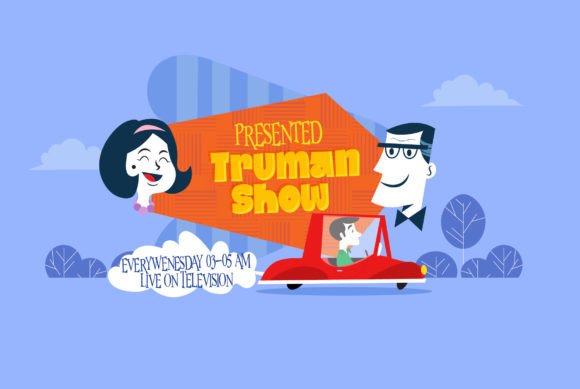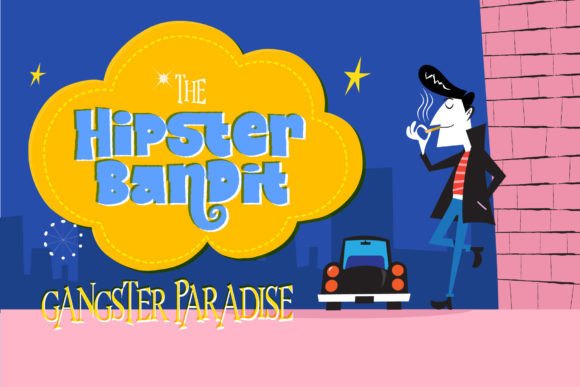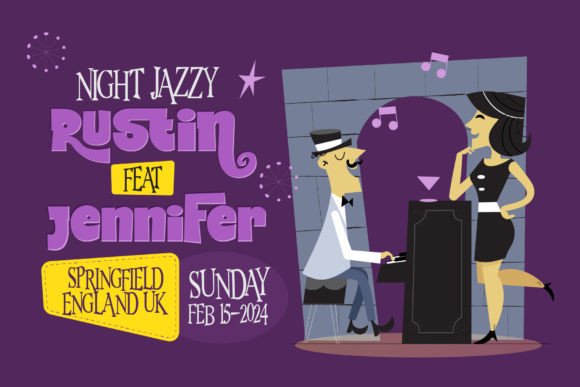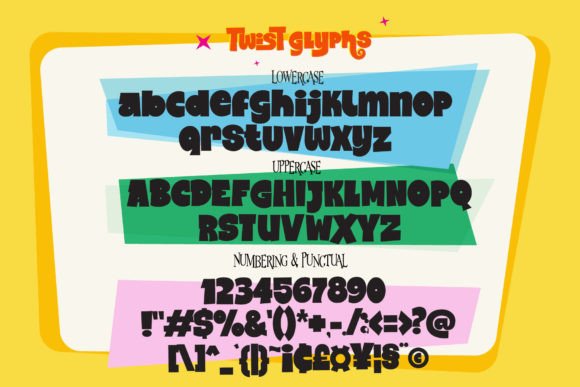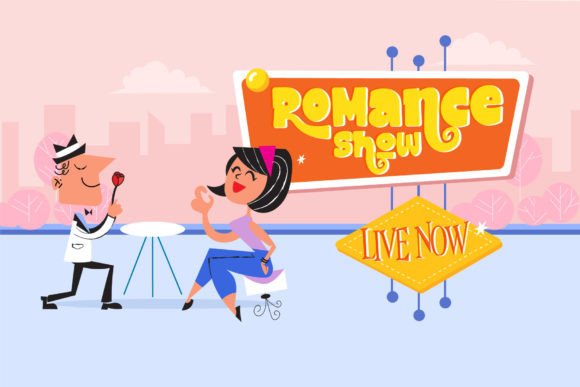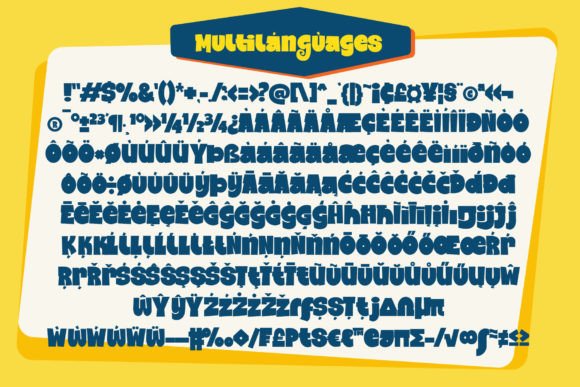
Adding a Dash of Whimsy to Your Designs
Have you ever stared at a blank page, trying to come up with the perfect design concept, only to be struck by a burst of creative energy? For designers, those moments are pure magic. And sometimes, all it takes is the right font to set the tone for a project. Enter Fortunes Twist Font, a playful and bulky display font that’s sure to add a fun and whimsical touch to your designs.
This charming font is perfect for designers looking to inject some personality into their work. With its quirky letterforms and lively energy, Fortunes Twist Font is ideal for logos, posters, packaging designs, and more. Whether you’re working on a project that needs a cheerful boost or a sense of playfulness, this font is sure to deliver. By incorporating Fortunes Twist Font into your designs, you’ll be able to bring a unique and captivating element that will set your work apart from the rest.
Fortunes Twist Font Key Features
- Unique Characteristics: Fortunes Twist Font features a unique blend of modern and vintage elements, with intricate details and ornate flourishes that add a touch of elegance to any design.
Designer Review: Fortunes Twist Font
Overall, I found Fortunes Twist to be a unique and intriguing font that’s sure to catch the eye. ✨ Its organic and handwritten feel gives it a sense of personality that’s perfect for creative projects or branding.
Here are some of the things I like about Fortunes Twist:
- ✨ Highly legible, making it perfect for body text or short paragraphs.
- ✨ Beautifully crafted, with subtle nuances in the letterforms that add to its charm.
- ✨ Comes in a variety of weights and styles, giving you flexibility in your design choices.
- ⚠️ May not be suitable for formal or professional projects, due to its casual and playful nature.
- ⚠️ Some characters may not render correctly in certain situations, such as small font sizes or low-resolution displays.
- ⚠️ May require additional styling to make it work well in certain contexts, such as headings or titles.
Overall, I think Fortunes Twist is a great choice for designers who want to add some personality and whimsy to their projects. Just be aware of its limitations and use it thoughtfully to get the best results.
Fortunes Twist font is ideal for:
- Adding a touch of elegance to your designs.
- Creating eye-catching headlines and titles.
- Adding a unique flair to your branding and logos.
Tips for Getting the Most Out of Fortunes Twist Font
Experiment with different font sizes, colors, and styles to create a unique look.
Pair Fortunes Twist with other elegant fonts for a sophisticated design.
Comparison: Great Vibes Font has a more fluid and organic feel compared to Fortunes Twist, which has a more geometric and stylized appearance. Great Vibes is also more versatile and can be used in a wider range of designs.